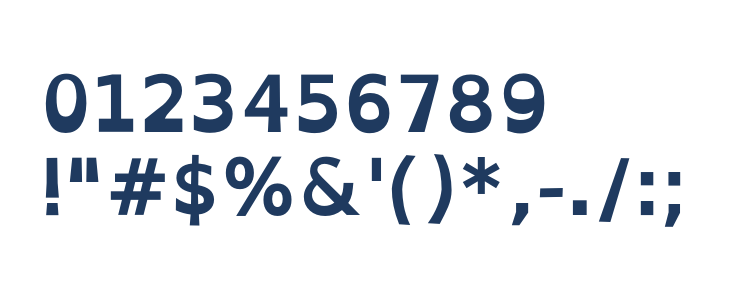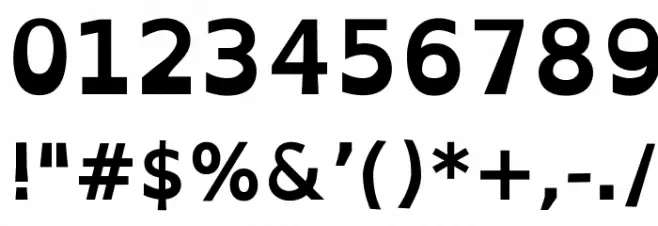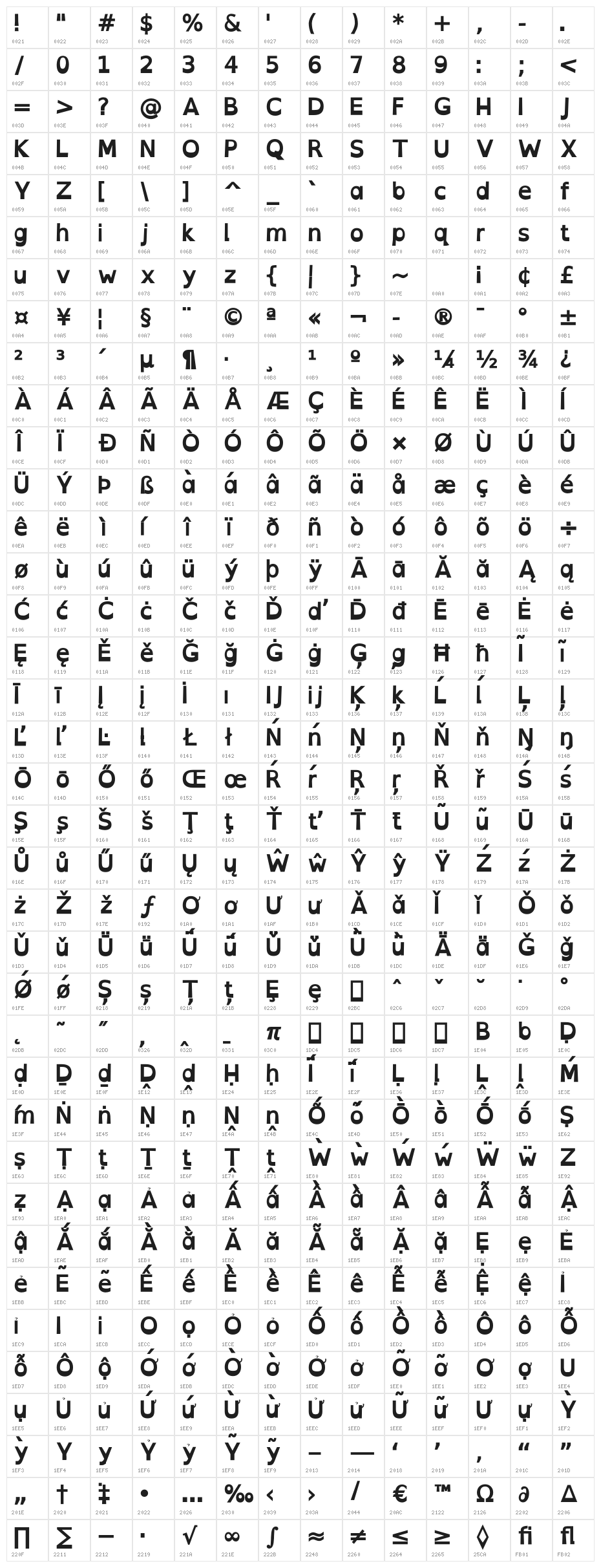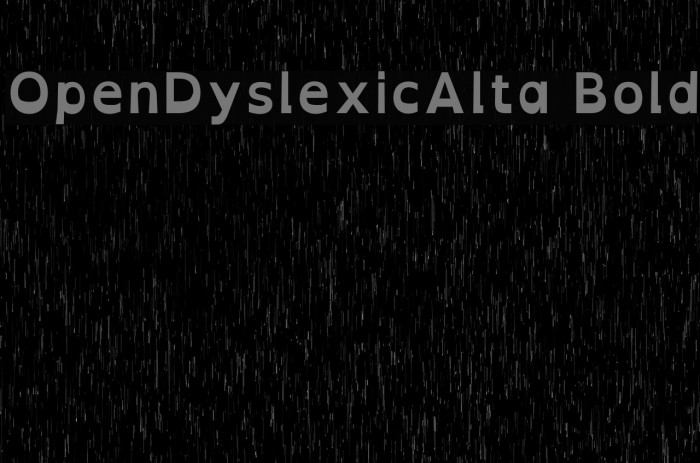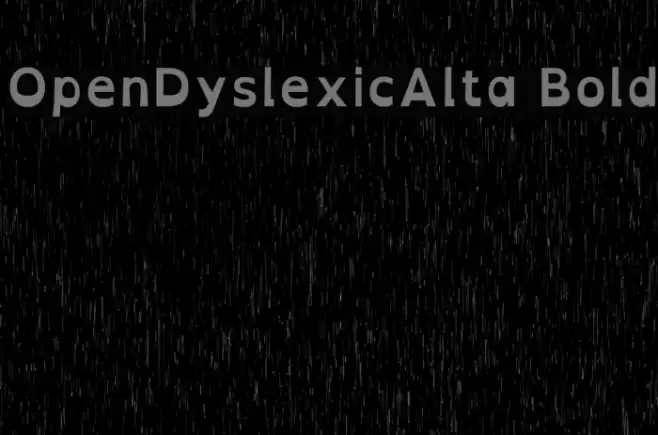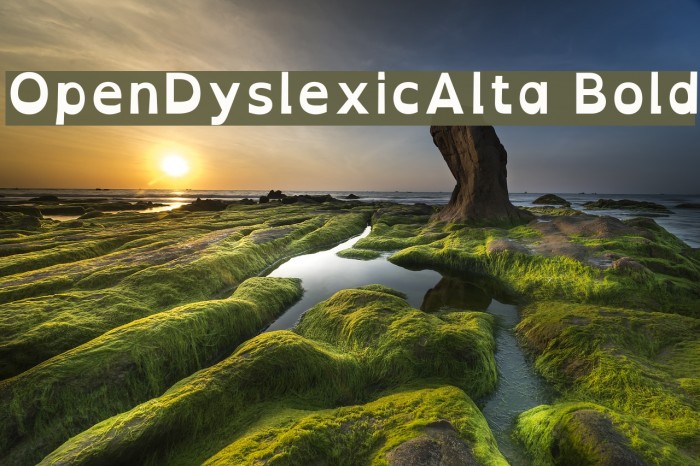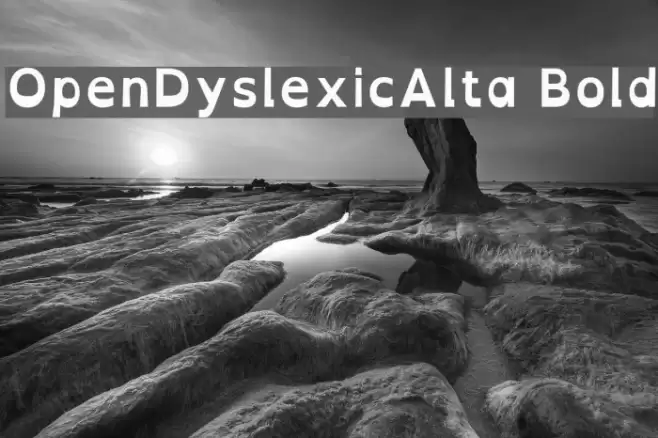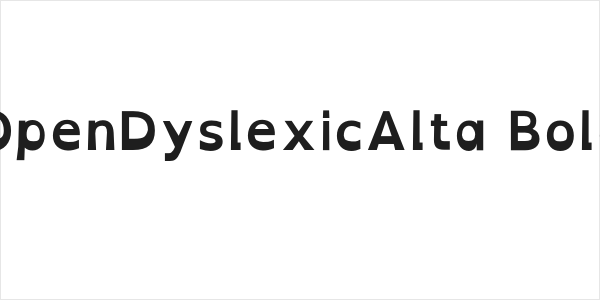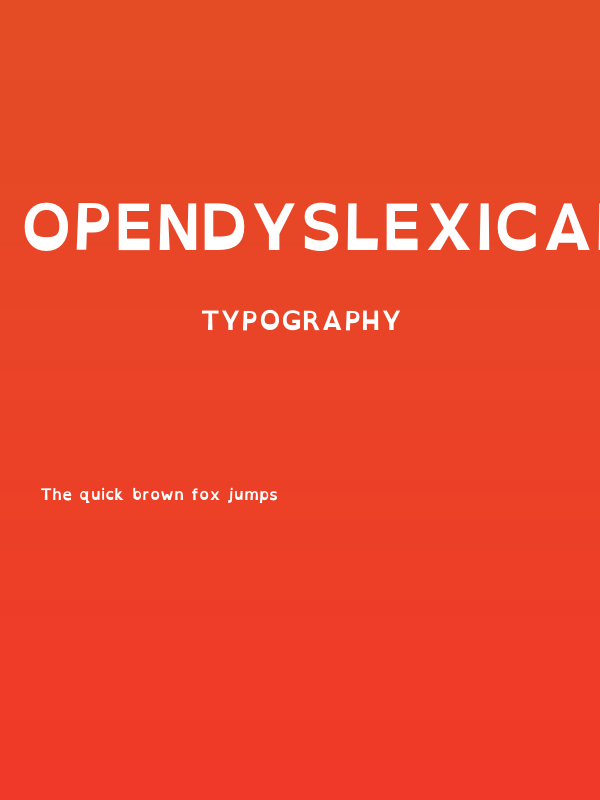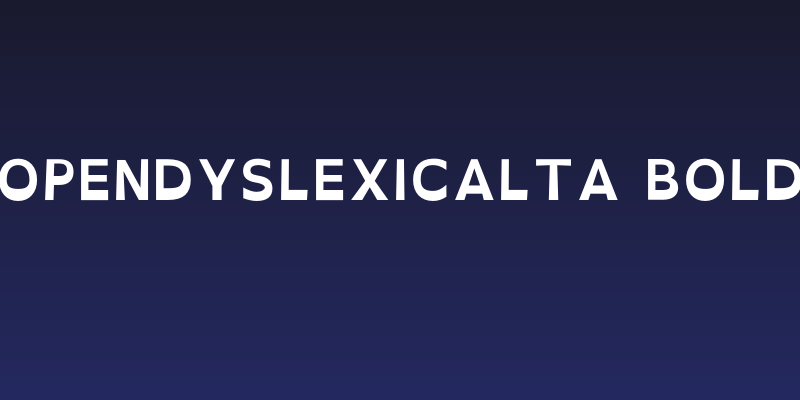
OpenDyslexicAlta Bold Font
OpenDyslexicAlta Bold Description
This typeface is designed with accessibility in mind, featuring unique letterforms that help differentiate similar characters to aid readability. The letters are bold and have a distinct weight that makes them stand out, enhancing clarity for readers with dyslexia. The characters have a slightly irregular shape, which prevents them from being easily confused with one another. This font is highly functional, with a straightforward and clean design that maintains legibility across various sizes and contexts. The numbers and special characters are equally clear, ensuring consistency throughout the typeface.
| Use Case | Body text, Educational materials, Accessibility tools |
| Proposed Projects | Ideal for educational materials, accessibility-focused designs, user interfaces, and any project requiring enhanced readability. |